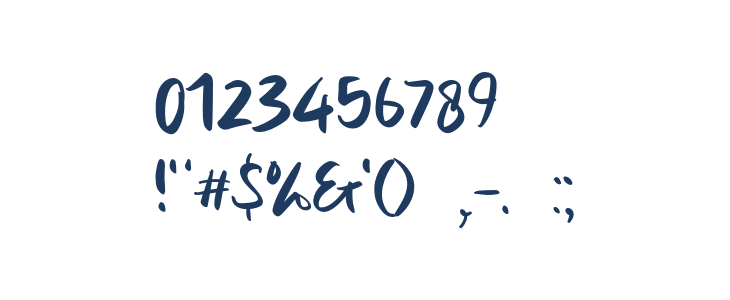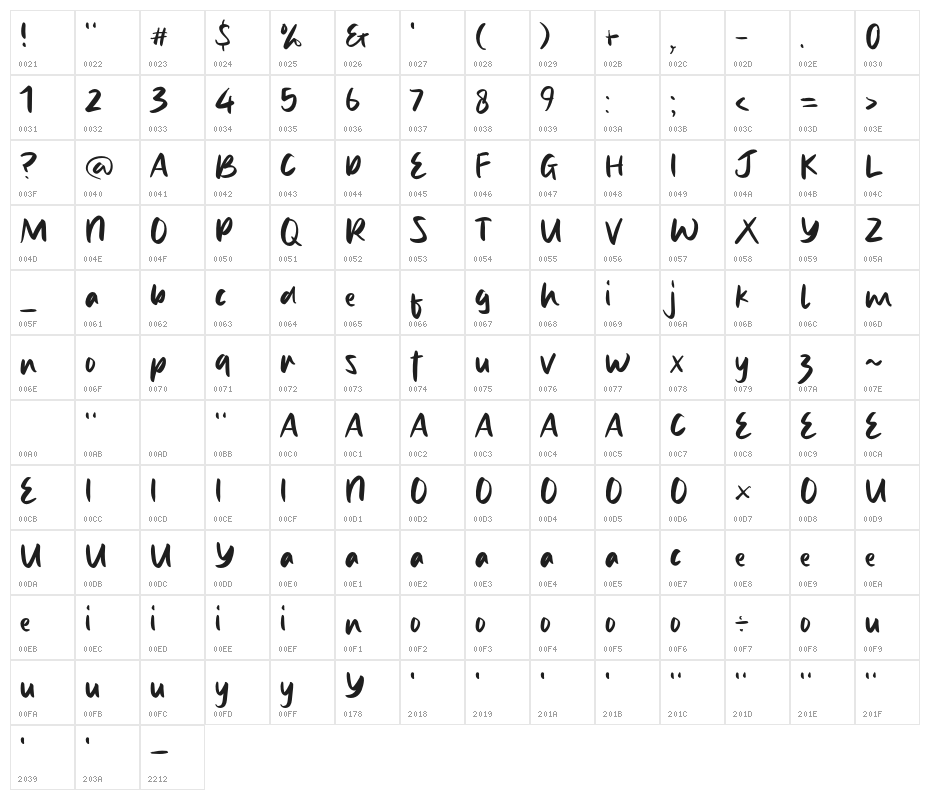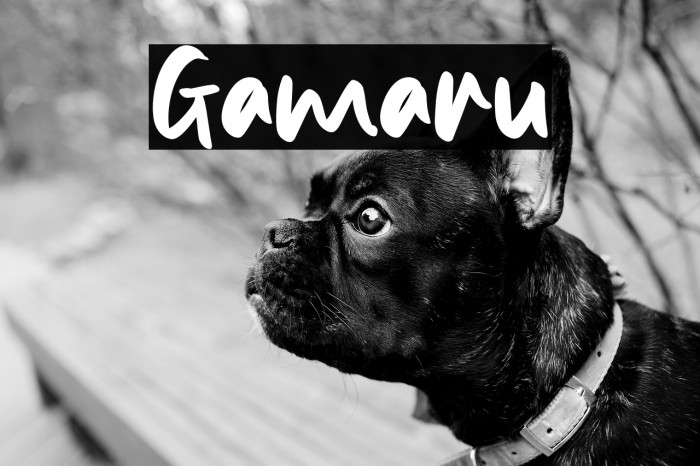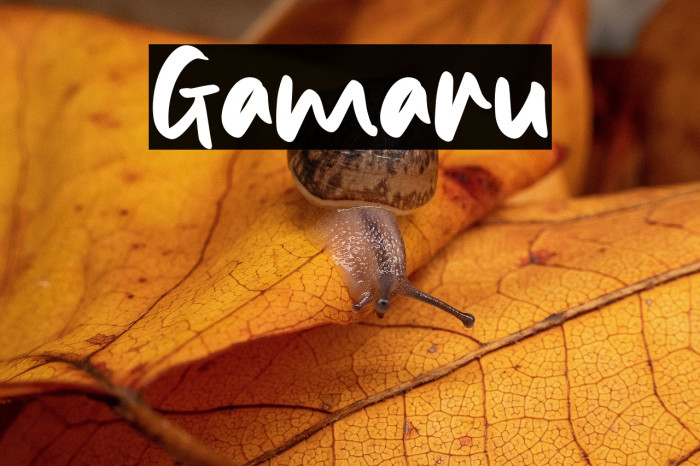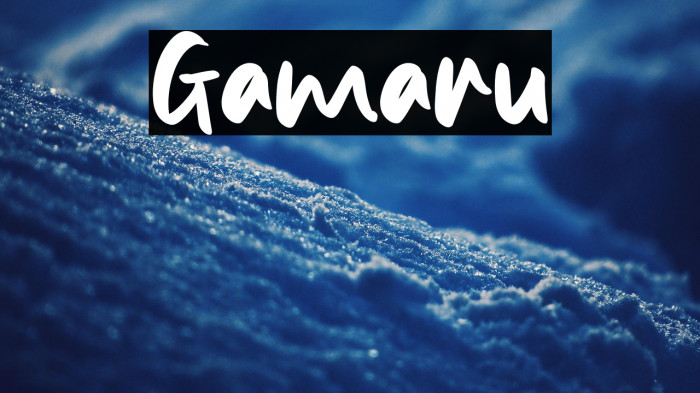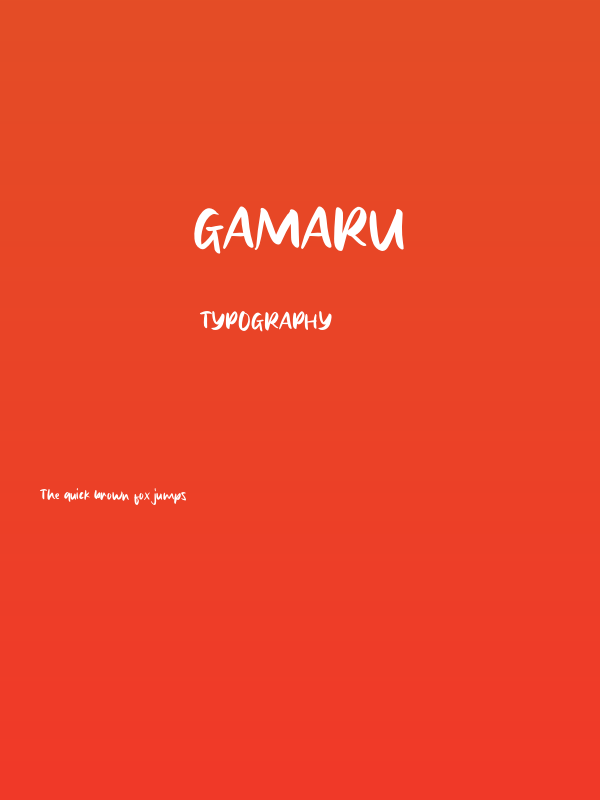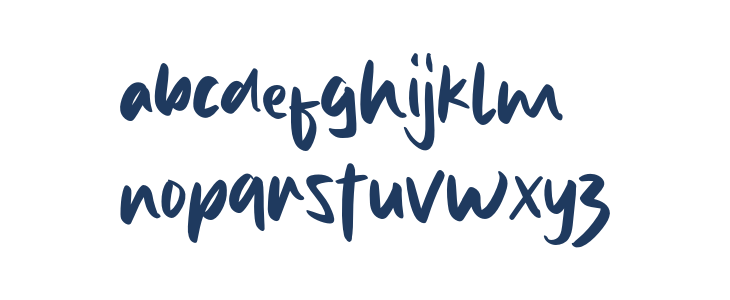
Gamaru Font
Gamaru Description
This font exudes a lively and energetic vibe with its bold, handwritten style. The characters are crafted with a fluid motion, giving them a dynamic and informal appearance. The uppercase and lowercase letters maintain a consistent flow, while the numbers and special characters complement the overall aesthetic. The strokes are thick and expressive, adding a sense of personality and flair. This font is perfect for projects that require a personal touch or a creative, artistic feel. Its playful nature makes it suitable for a variety of applications, from casual branding to artistic posters.
| Use Case | Logos, Headlines, Posters |
| Proposed Projects | Ideal for creative branding, artistic posters, personal invitations, and casual social media graphics. |